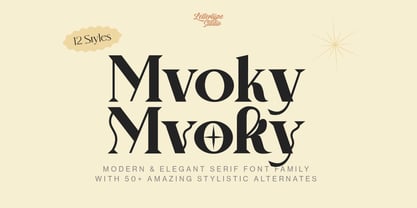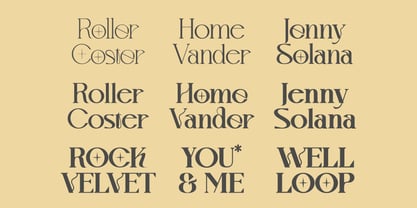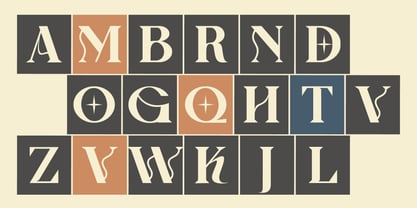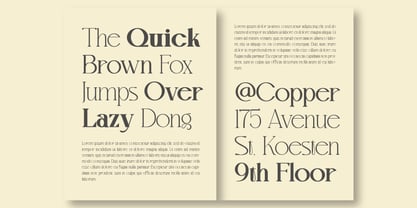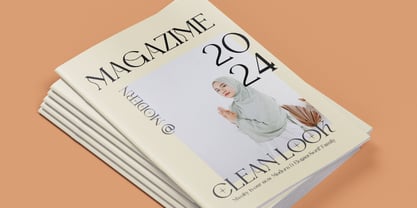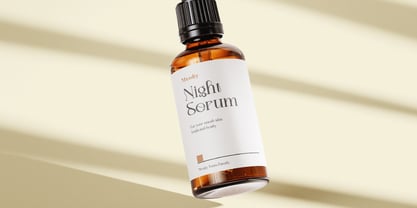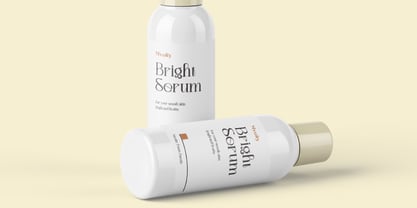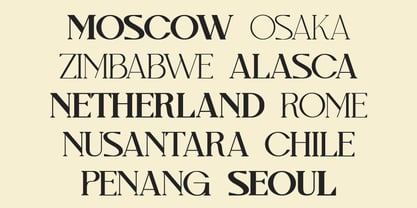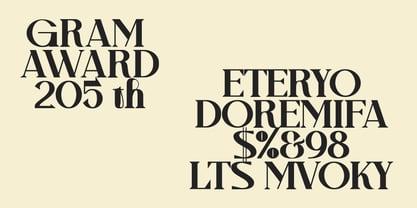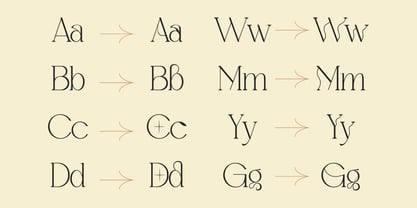
The Mvoky Font Family was designed by Diki Pradipta Tri Atmojo and published by Lettertype Studio. Mvoky contains 12 styles and family package options.
Mvoky is a modern, elegant chic, bold, and heavy serif font with many unique character sets. Perfect for sophisticated branding, editorial design, web typography, and more. These fonts offer timeless appeal with clean lines, geometric and luxurious details, ensuring your projects stand out with elegance and style. Ideal for designers seeking versatility and refinement in their typography choices.
Mvoky font family offering multiple styles and multilingual support, elevates your digital and print creations with a unique modern and vintage flair. This font works in large and small sizes and includes 12 styles from thin to extra black. They feature 50+ unique alternates, multilingual support, and various weights.
Designers: Diki Pradipta Tri Atmojo
Publisher: Lettertype Studio
Foundry: Lettertype Studio
Design Owner: Lettertype Studio
Mvoky